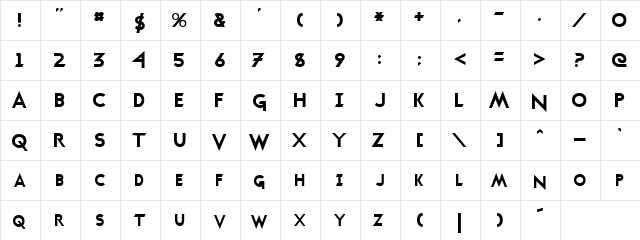
Transmetals Normal
Transmetals takes a measured approach to typography — its balanced proportions and neutral character make it a reliable workhorse for both digital and print work.